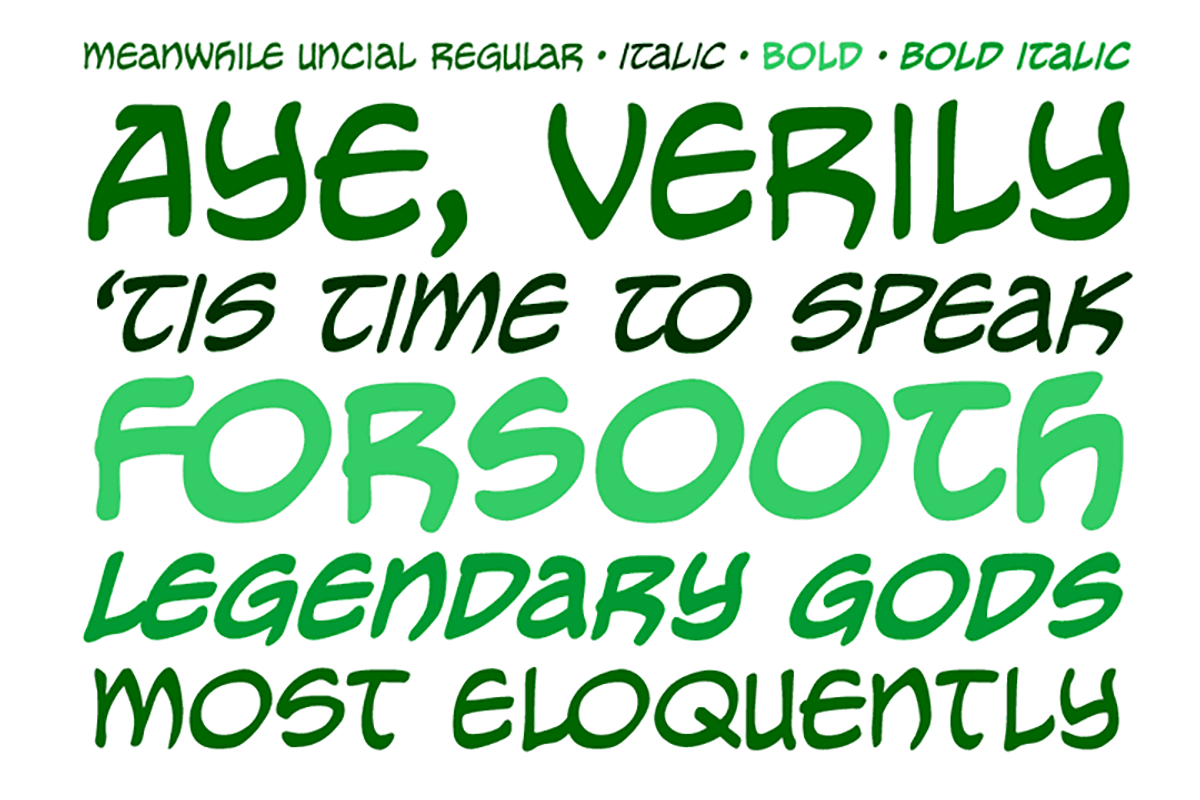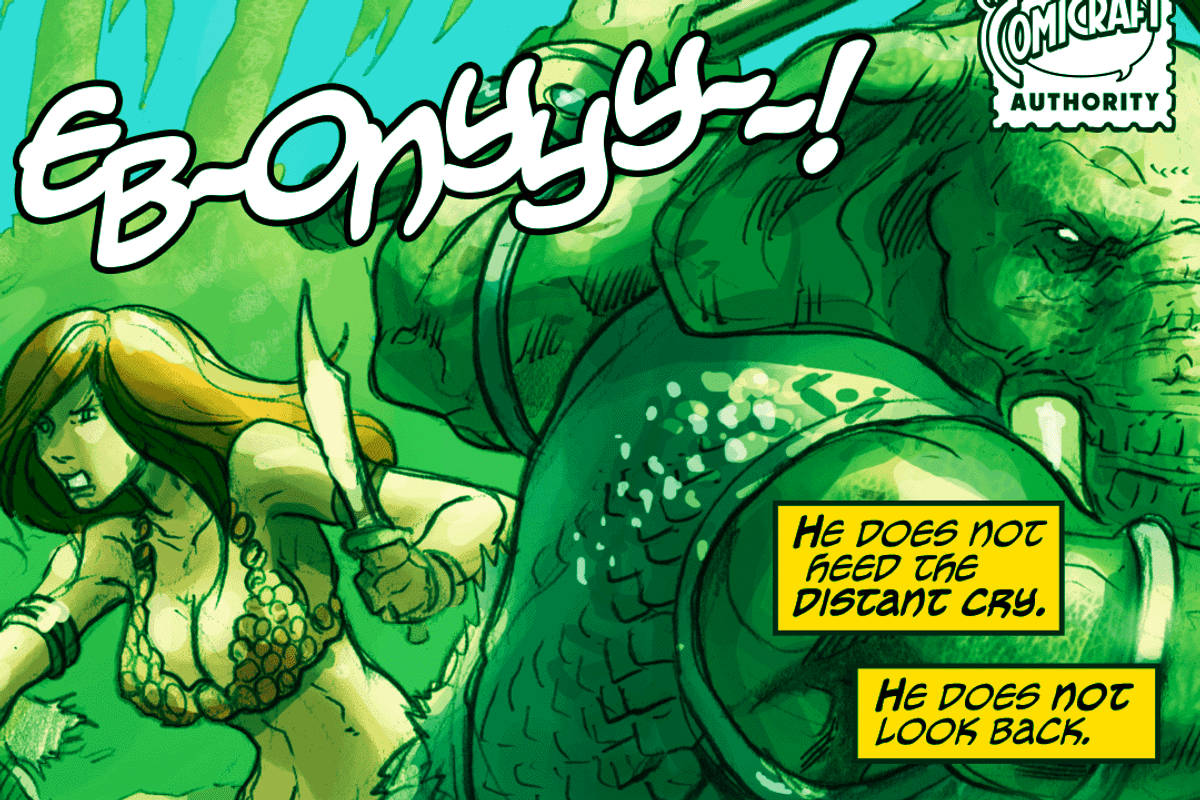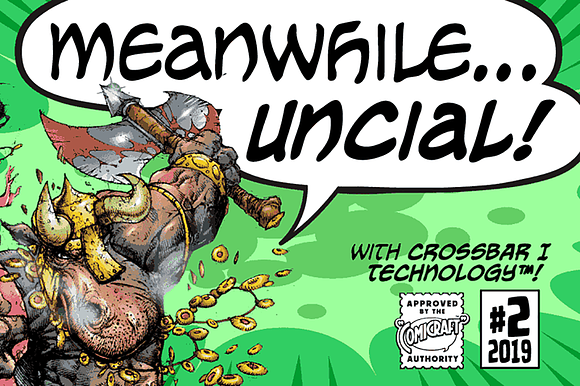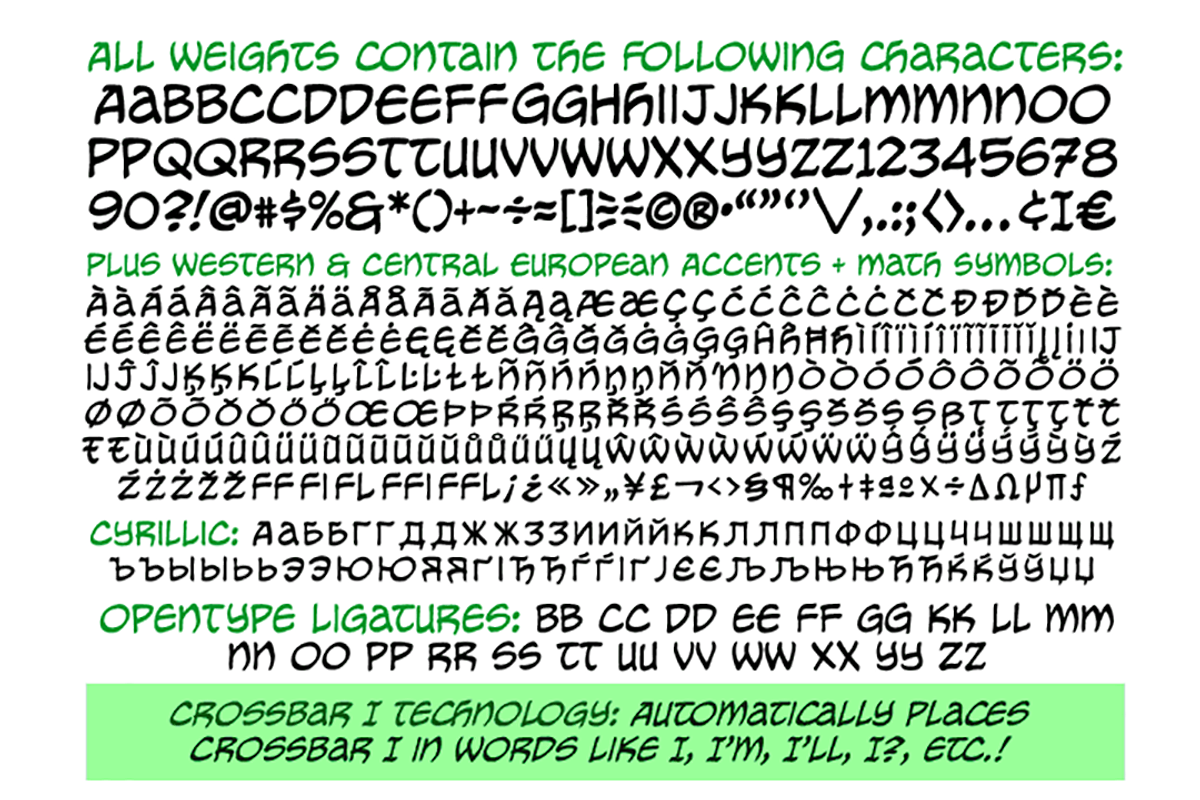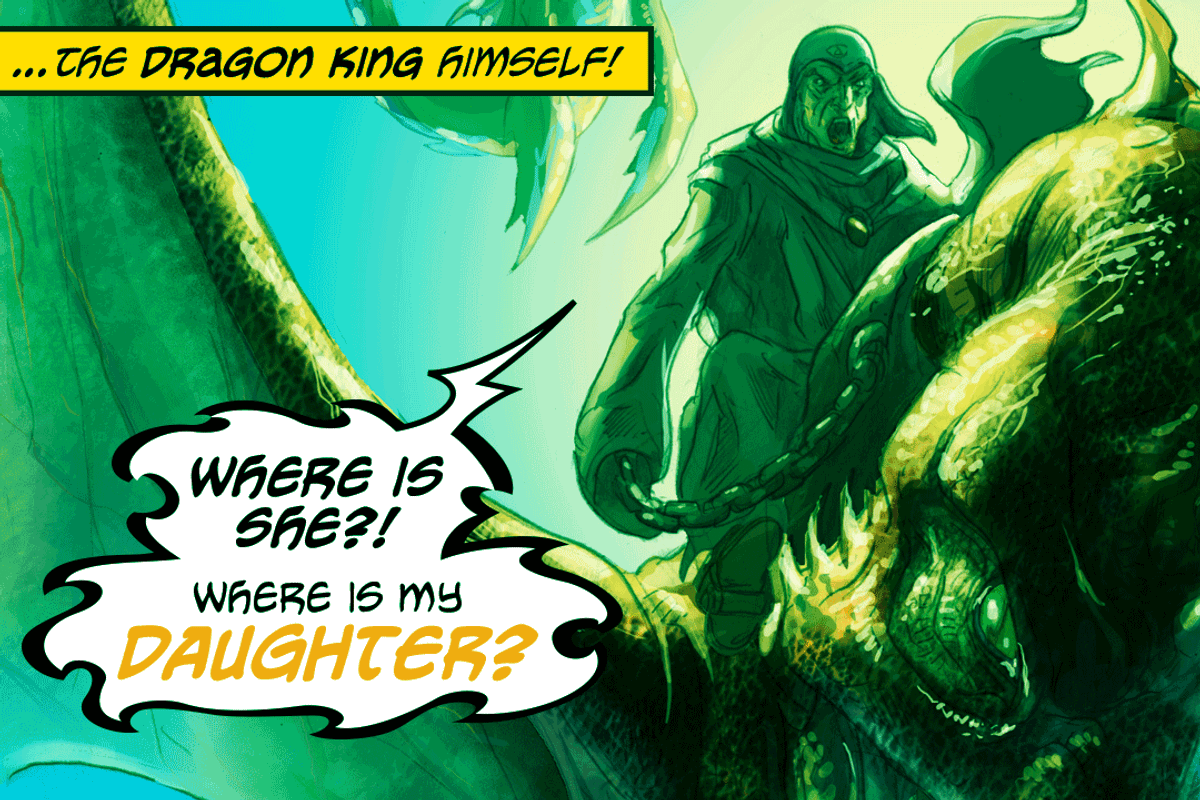
Meanwhile Uncial
Aye! Verily ‘twould seem ’tis time for thee to speak in the majuscule language of legendary gods! Yea, thou shalt speak most eloquently in the style and manner of many a pseudo-Shakespearian Bard. Forsooth, thine utterances such as “HAVE AT THEE, VILE VILLAIN!” shall cause all ye creatures of evil to begone from the hallowed halls of Asgard (or other otherworldly domains of the gods).
Forsooth, Meanwhile Uncial is a Capital Font, suitable for Gods of Thunder, Mischief or e’en Warriors Three!
- Includes Western & Central European accents and Cyrillic characters.